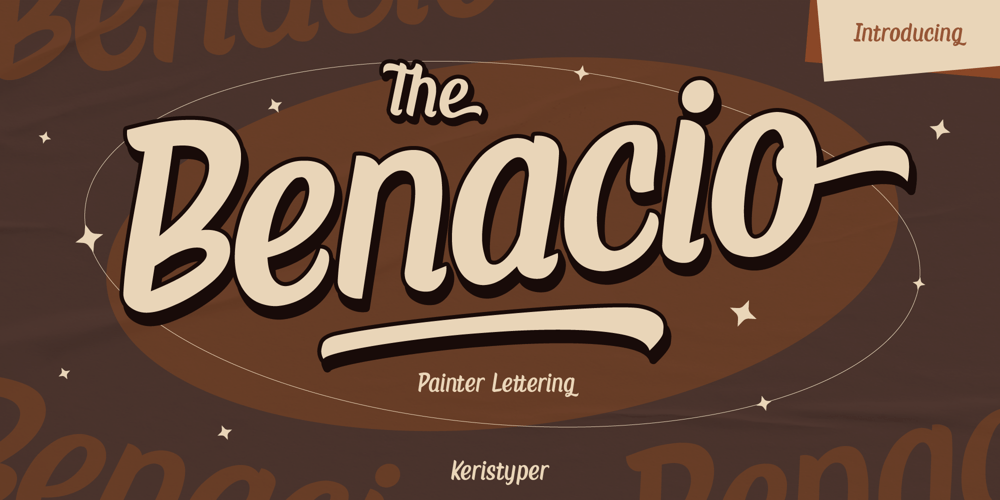
Benacio
Benacio font
Benacio Font Family was designed by Tezar Tantular and published by Keristyper Studio. Benacio contains 1 styles and family package options. Introducing Benacio Display Font is a handmade font style dance and then traces of life to have a Grungy brush and unique calligraphic shape, the writing style is very natural and simple.Benacio Handwriting Font multilingual support: Afrikaans, Albanian, Catalan, Danish, Dutch, English, Estonian, French, Finnish, German, Icelandic, Indonesian, Italian, Malay, Norwegian, Portuguese, Spanish, Swedish, Zulu, and many more.What’s Included : Web Fonts Standard & Multilingual glyphs Ligature Works on PC & Mac Simple installations Accessible in Adobe Illustrator, Adobe Photoshop, Adobe InDesign, even work on Microsoft Word. Hope you enjoy with our font!